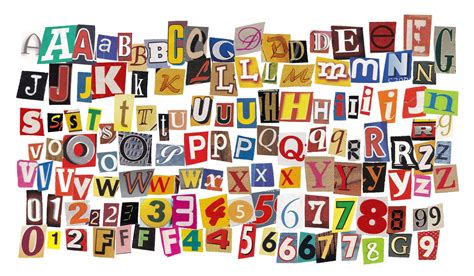
In the world of design and typography, certain fonts have the power to evoke nostalgia, elegance, and a sense of timelessness. One such font is the Magazine Letters Font, which has become synonymous with classic magazine covers and vintage fashion. This font, with its distinctive serif style, has been used extensively in the fashion industry, particularly in the design of Magazine Letters Font Clothes. Let's delve into the history, characteristics, and modern applications of this iconic font.
History of Magazine Letters Font
The Magazine Letters Font has a rich history that dates back to the early 20th century. It was originally designed for use in magazine covers, where its bold and elegant serifs made it stand out on newsstands. The font's design was influenced by the Art Deco movement, which emphasized geometric shapes and bold lines. This style was perfect for capturing the attention of passersby and conveying a sense of luxury and sophistication.
Over the years, the Magazine Letters Font has evolved, but its core characteristics have remained consistent. It has been used in various forms of media, from print to digital, and has become a staple in the world of fashion and design. The font's versatility and timeless appeal have made it a favorite among designers and fashion enthusiasts alike.
Characteristics of Magazine Letters Font
The Magazine Letters Font is known for its distinctive serif style, which gives it a classic and elegant look. The font features bold, thick strokes that make it highly readable, even from a distance. The serifs, which are the small lines at the ends of the strokes, add a touch of sophistication and elegance to the font. This makes it perfect for use in headlines, titles, and other prominent text elements.
One of the key characteristics of the Magazine Letters Font is its versatility. It can be used in a variety of contexts, from magazine covers to fashion labels, and still maintain its timeless appeal. The font's bold and elegant style makes it a great choice for conveying a sense of luxury and sophistication, which is why it is often used in the design of Magazine Letters Font Clothes.
Another important characteristic of the Magazine Letters Font is its readability. The bold, thick strokes and clear serifs make it easy to read, even at small sizes. This makes it a great choice for use in headlines, titles, and other prominent text elements, where readability is crucial.
Applications of Magazine Letters Font in Fashion
The Magazine Letters Font has been widely used in the fashion industry, particularly in the design of Magazine Letters Font Clothes. The font's bold and elegant style makes it a great choice for conveying a sense of luxury and sophistication, which is why it is often used in the design of high-end fashion labels and clothing brands.
One of the most common applications of the Magazine Letters Font in fashion is in the design of clothing labels. The font's bold and elegant style makes it a great choice for conveying a sense of luxury and sophistication, which is why it is often used in the design of high-end fashion labels. The font's clear serifs and thick strokes make it highly readable, even at small sizes, which is crucial for clothing labels.
Another application of the Magazine Letters Font in fashion is in the design of Magazine Letters Font Clothes. The font's bold and elegant style makes it a great choice for conveying a sense of luxury and sophistication, which is why it is often used in the design of high-end fashion clothing. The font's clear serifs and thick strokes make it highly readable, even at small sizes, which is crucial for clothing labels and other text elements on clothing.
In addition to clothing labels and Magazine Letters Font Clothes, the Magazine Letters Font is also used in the design of fashion magazines and catalogs. The font's bold and elegant style makes it a great choice for conveying a sense of luxury and sophistication, which is why it is often used in the design of high-end fashion magazines and catalogs. The font's clear serifs and thick strokes make it highly readable, even at small sizes, which is crucial for magazine covers and other text elements.
Modern Applications of Magazine Letters Font
While the Magazine Letters Font has a rich history and has been used extensively in the fashion industry, it continues to be relevant in modern design. The font's timeless appeal and versatility make it a great choice for a variety of applications, from print to digital media.
One of the modern applications of the Magazine Letters Font is in the design of digital media. The font's bold and elegant style makes it a great choice for conveying a sense of luxury and sophistication, which is why it is often used in the design of websites, apps, and other digital media. The font's clear serifs and thick strokes make it highly readable, even on small screens, which is crucial for digital media.
Another modern application of the Magazine Letters Font is in the design of branding and marketing materials. The font's bold and elegant style makes it a great choice for conveying a sense of luxury and sophistication, which is why it is often used in the design of logos, brochures, and other marketing materials. The font's clear serifs and thick strokes make it highly readable, even at small sizes, which is crucial for branding and marketing materials.
In addition to digital media and branding materials, the Magazine Letters Font is also used in the design of packaging. The font's bold and elegant style makes it a great choice for conveying a sense of luxury and sophistication, which is why it is often used in the design of high-end packaging. The font's clear serifs and thick strokes make it highly readable, even at small sizes, which is crucial for packaging.
Designing with Magazine Letters Font
When designing with the Magazine Letters Font, it is important to consider the context and purpose of the design. The font's bold and elegant style makes it a great choice for conveying a sense of luxury and sophistication, but it may not be the best choice for all types of designs. For example, the font's thick strokes and clear serifs may not be suitable for use in body text, where readability is crucial.
When using the Magazine Letters Font in a design, it is important to consider the following factors:
- Size: The font's bold and elegant style makes it highly readable, even at small sizes. However, it is important to ensure that the text is large enough to be easily read.
- Color: The font's bold and elegant style makes it highly readable, even in a variety of colors. However, it is important to ensure that the text color contrasts well with the background color to ensure readability.
- Spacing: The font's bold and elegant style makes it highly readable, even with tight spacing. However, it is important to ensure that the text is spaced appropriately to ensure readability.
- Alignment: The font's bold and elegant style makes it highly readable, even with different alignments. However, it is important to ensure that the text is aligned appropriately to ensure readability.
📝 Note: When designing with the Magazine Letters Font, it is important to consider the context and purpose of the design. The font's bold and elegant style makes it a great choice for conveying a sense of luxury and sophistication, but it may not be the best choice for all types of designs. For example, the font's thick strokes and clear serifs may not be suitable for use in body text, where readability is crucial.
Examples of Magazine Letters Font in Use
The Magazine Letters Font has been used in a variety of contexts, from fashion to digital media. Here are some examples of the font in use:
Fashion Labels: The font's bold and elegant style makes it a great choice for conveying a sense of luxury and sophistication, which is why it is often used in the design of high-end fashion labels. The font's clear serifs and thick strokes make it highly readable, even at small sizes, which is crucial for clothing labels.
Magazine Covers: The font's bold and elegant style makes it a great choice for conveying a sense of luxury and sophistication, which is why it is often used in the design of high-end fashion magazines. The font's clear serifs and thick strokes make it highly readable, even at small sizes, which is crucial for magazine covers.
Websites and Apps: The font's bold and elegant style makes it a great choice for conveying a sense of luxury and sophistication, which is why it is often used in the design of websites and apps. The font's clear serifs and thick strokes make it highly readable, even on small screens, which is crucial for digital media.
Branding and Marketing Materials: The font's bold and elegant style makes it a great choice for conveying a sense of luxury and sophistication, which is why it is often used in the design of logos, brochures, and other marketing materials. The font's clear serifs and thick strokes make it highly readable, even at small sizes, which is crucial for branding and marketing materials.
Packaging: The font's bold and elegant style makes it a great choice for conveying a sense of luxury and sophistication, which is why it is often used in the design of high-end packaging. The font's clear serifs and thick strokes make it highly readable, even at small sizes, which is crucial for packaging.
📝 Note: When using the Magazine Letters Font in a design, it is important to consider the context and purpose of the design. The font's bold and elegant style makes it a great choice for conveying a sense of luxury and sophistication, but it may not be the best choice for all types of designs. For example, the font's thick strokes and clear serifs may not be suitable for use in body text, where readability is crucial.
Typography Trends and Magazine Letters Font
The world of typography is constantly evolving, with new trends emerging all the time. However, the Magazine Letters Font has remained a staple in the world of design, thanks to its timeless appeal and versatility. The font's bold and elegant style makes it a great choice for conveying a sense of luxury and sophistication, which is why it continues to be used in a variety of contexts, from fashion to digital media.
One of the current typography trends is the use of bold, statement fonts in design. The Magazine Letters Font fits perfectly into this trend, thanks to its bold and elegant style. The font's clear serifs and thick strokes make it highly readable, even at small sizes, which is crucial for designs that require a strong visual impact.
Another typography trend is the use of vintage and retro styles in design. The Magazine Letters Font fits perfectly into this trend, thanks to its Art Deco influences. The font's bold and elegant style, combined with its clear serifs and thick strokes, gives it a timeless appeal that is perfect for designs that want to evoke a sense of nostalgia and sophistication.
In addition to these trends, the Magazine Letters Font is also used in the design of minimalist and modern designs. The font's bold and elegant style, combined with its clear serifs and thick strokes, makes it a great choice for conveying a sense of luxury and sophistication, even in minimalist and modern designs.
Magazine Letters Font in Digital Media
The Magazine Letters Font has also found its way into the digital world, where it is used in the design of websites, apps, and other digital media. The font's bold and elegant style makes it a great choice for conveying a sense of luxury and sophistication, which is why it is often used in the design of high-end websites and apps. The font's clear serifs and thick strokes make it highly readable, even on small screens, which is crucial for digital media.
When using the Magazine Letters Font in digital media, it is important to consider the following factors:
- Screen Size: The font's bold and elegant style makes it highly readable, even on small screens. However, it is important to ensure that the text is large enough to be easily read on all screen sizes.
- Resolution: The font's bold and elegant style makes it highly readable, even at low resolutions. However, it is important to ensure that the text is clear and legible at all resolutions.
- Color: The font's bold and elegant style makes it highly readable, even in a variety of colors. However, it is important to ensure that the text color contrasts well with the background color to ensure readability.
- Spacing: The font's bold and elegant style makes it highly readable, even with tight spacing. However, it is important to ensure that the text is spaced appropriately to ensure readability.
- Alignment: The font's bold and elegant style makes it highly readable, even with different alignments. However, it is important to ensure that the text is aligned appropriately to ensure readability.
📝 Note: When using the Magazine Letters Font in digital media, it is important to consider the context and purpose of the design. The font's bold and elegant style makes it a great choice for conveying a sense of luxury and sophistication, but it may not be the best choice for all types of digital media. For example, the font's thick strokes and clear serifs may not be suitable for use in body text, where readability is crucial.
Magazine Letters Font in Branding and Marketing
The Magazine Letters Font is also widely used in branding and marketing materials, where it helps to convey a sense of luxury and sophistication. The font's bold and elegant style makes it a great choice for logos, brochures, and other marketing materials. The font's clear serifs and thick strokes make it highly readable, even at small sizes, which is crucial for branding and marketing materials.
When using the Magazine Letters Font in branding and marketing materials, it is important to consider the following factors:
- Brand Identity: The font's bold and elegant style makes it a great choice for conveying a sense of luxury and sophistication, which is why it is often used in the design of high-end brands. The font's clear serifs and thick strokes make it highly readable, even at small sizes, which is crucial for branding materials.
- Target Audience: The font's bold and elegant style makes it a great choice for conveying a sense of luxury and sophistication, which is why it is often used in the design of marketing materials for high-end products and services. The font's clear serifs and thick strokes make it highly readable, even at small sizes, which is crucial for marketing materials.
- Consistency: The font's bold and elegant style makes it a great choice for conveying a sense of luxury and sophistication, which is why it is often used consistently across all branding and marketing materials. The font's clear serifs and thick strokes make it highly readable, even at small sizes, which is crucial for branding and marketing materials.
📝 Note: When using the Magazine Letters Font in branding and marketing materials, it is important to consider the context and purpose of the design. The font's bold and elegant style makes it a great choice for conveying a sense of luxury and sophistication, but it may not be the best choice for all types of branding and marketing materials. For example, the font's thick strokes and clear serifs may not be suitable for use in body text, where readability is crucial.
Magazine Letters Font in Packaging
The Magazine Letters Font is also used in the design of packaging, where it helps to convey a sense of luxury and sophistication. The font's bold and elegant style makes it a great choice for high-end packaging, where the goal is to create a strong visual impact. The font's clear serifs and thick strokes make it highly readable, even at small sizes, which is crucial for packaging.
When using the Magazine Letters Font in packaging, it is important to consider the following factors:
- Product Type: The font's bold and elegant style makes it a great choice for conveying a sense of luxury and sophistication, which is why it is often used in the design of high-end packaging. The font's clear serifs and thick strokes make it highly readable, even at small sizes, which is crucial for packaging.
- Target Audience: The font's bold and elegant style makes it a great choice for conveying a sense of luxury and sophistication, which is why it is often used in the design of packaging for high-end products. The font's clear serifs and thick strokes make it highly readable, even at small sizes, which is crucial for packaging.
- Brand Identity: The font's bold and elegant style makes it a great choice for conveying a sense of luxury and sophistication, which is why it is often used consistently across all packaging materials. The font's clear serifs and thick strokes make it highly readable, even at small sizes, which is crucial for packaging.
📝 Note: When using the Magazine Letters Font in packaging, it is important to consider the context and purpose of the design. The font's bold and elegant style makes it a great choice for conveying a sense of luxury and sophistication, but it may not be the best choice for all types of packaging. For example, the font's thick strokes and clear serifs may not be suitable for use in body text, where readability is crucial.
Magazine Letters Font in Fashion Design
The Magazine Letters Font has been a staple in the fashion industry for decades, and its use in fashion design continues to be popular today. The font's bold and elegant style makes it a great choice for conveying a sense of luxury and sophistication, which is why it is often used in the design of high-end fashion labels and Magazine Letters Font Clothes. The font's clear serifs and thick strokes make it highly readable, even at small sizes, which is crucial for fashion design.
When using the Magazine Letters Font in fashion design, it is important to consider the following factors:
- Brand Identity: The font’s bold and elegant style makes it a great choice for conveying a sense of luxury and sophistication, which is why it is often used in the design of high-end fashion labels. The font’s clear serifs and thick strokes make it highly readable, even at small sizes, which is crucial for fashion design.
- Target Audience: The font’s bold and elegant style makes it a great choice for conveying a sense of luxury and sophistication, which is why it is often used in the design of Magazine Letters Font Clothes. The font’s clear serifs and thick strokes make it highly readable, even at small sizes, which is crucial for fashion design.
- Consistency: The font’s bold and elegant style makes it a great choice for conveying a sense of luxury and sophistication, which is why it is often used consistently across all fashion design materials. The font’s clear serifs and thick strokes make it highly readable, even at small sizes, which is crucial for fashion